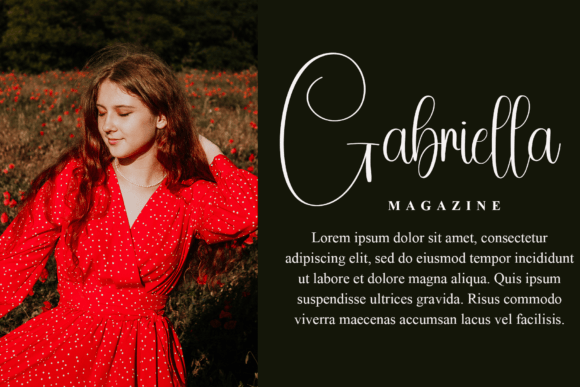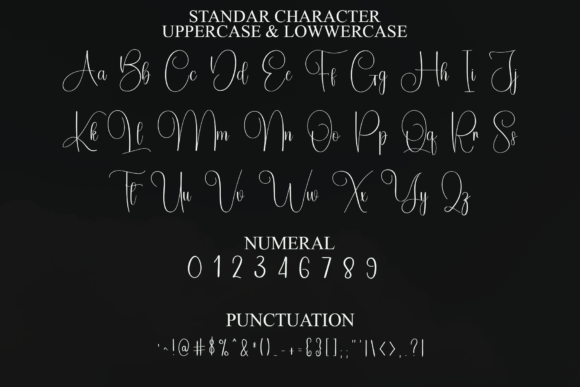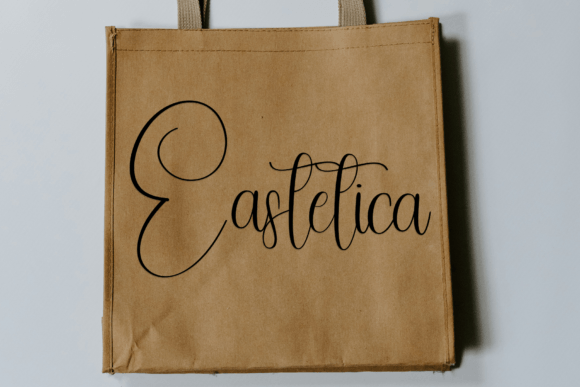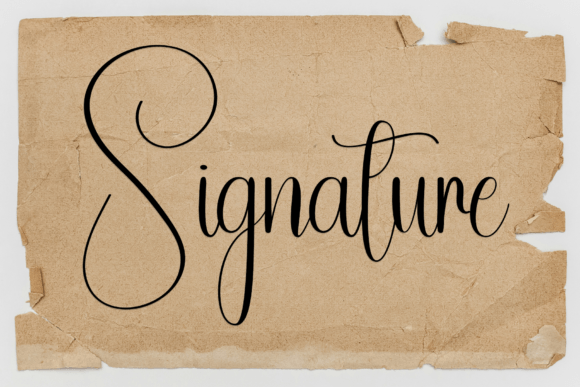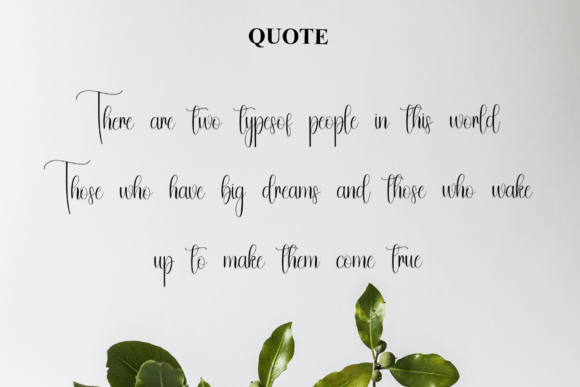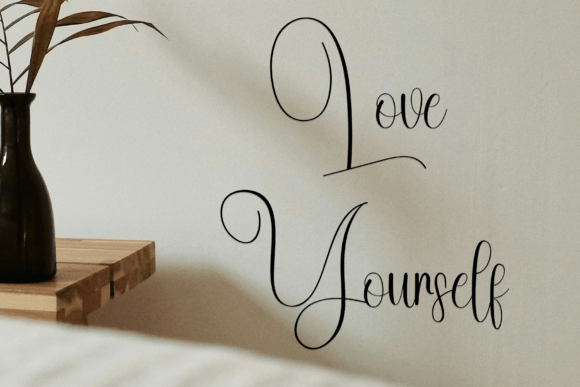
Introducing Belive Font: Elevate Your Designs with Timeless Elegance
In the world of typography, a font can make or break the aesthetic of a design project. For designers and crafters seeking a touch of sophistication and elegance, the Belive Font is an exceptional choice. This stylish handwritten font boasts a contemporary atmosphere, impeccable form, and a balanced, varied appearance that is sure to enhance the beauty of your projects.
Inspired by Timeless Classic Calligraphy
Belive Font draws inspiration from the classic calligraphy of yesteryear, infusing it with a modern twist to create a truly unique and versatile typeface. The result is a font that exudes a sense of refinement and poise, perfect for designers looking to add a touch of luxury to their work.
Key Features of Belive Font
- PUA Encoded: Belive Font is PUA (Private Use Area) encoded, allowing easy access to all the amazing glyphs and ligatures. This feature makes it simple to incorporate the font’s beautiful swashes and flourishes into your designs.
- Balanced and Varied: The font’s balanced and varied design ensures that it can be used for a wide range of projects, from elegant headings to beautiful quotes and phrases.
- Contemporary Atmosphere: Belive Font’s contemporary atmosphere makes it perfect for designers looking to create modern, stylish designs that still evoke a sense of classic sophistication.
- Impeccable Form: The font’s impeccable form ensures that it is highly legible, even at smaller sizes, making it ideal for use in body text as well as headings.
Belive Font is an excellent choice for designers and crafters working on a variety of projects, including:
- Branding and Packaging: Use Belive Font to create stunning logos, business cards, and packaging that exudes elegance and sophistication.
- Stationery and Invitations: Add a touch of luxury to your stationery, invitations, and greeting cards with this beautiful handwritten font.
- Web Design: Belive Font is perfect for use in web design, particularly for headings, titles, and other display text.
- Digital Crafts: Use Belive Font to create stunning digital crafts, such as printable art, planners, and journals.
Tips for Using Belive Font
To get the most out of Belive Font, consider the following tips:
- Experiment with Ligatures: Take advantage of the font’s beautiful ligatures and glyphs to add a touch of elegance to your designs.
- Mix and Match: Combine Belive Font with other fonts to create a unique and visually appealing design.
- Pay Attention to Kerning: Make sure to adjust the kerning to ensure that the font looks its best, particularly when using it for body text.
Belive Font is a stunning handwritten font that offers a perfect blend of classic elegance and modern sophistication. With its PUA encoding, balanced and varied design, and impeccable form, it’s an excellent choice for designers and crafters looking to elevate their projects. Whether you’re working on branding, stationery, web design, or digital crafts, Belive Font is sure to become a go-to in your typography arsenal.